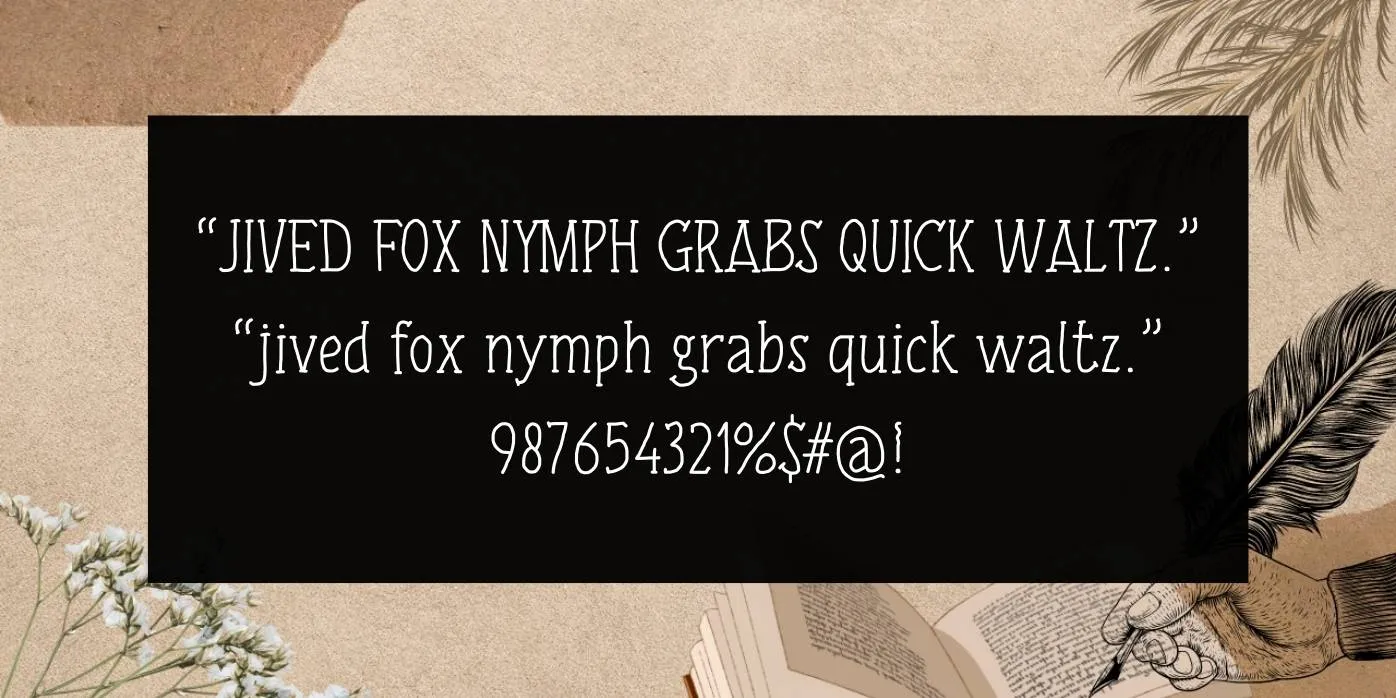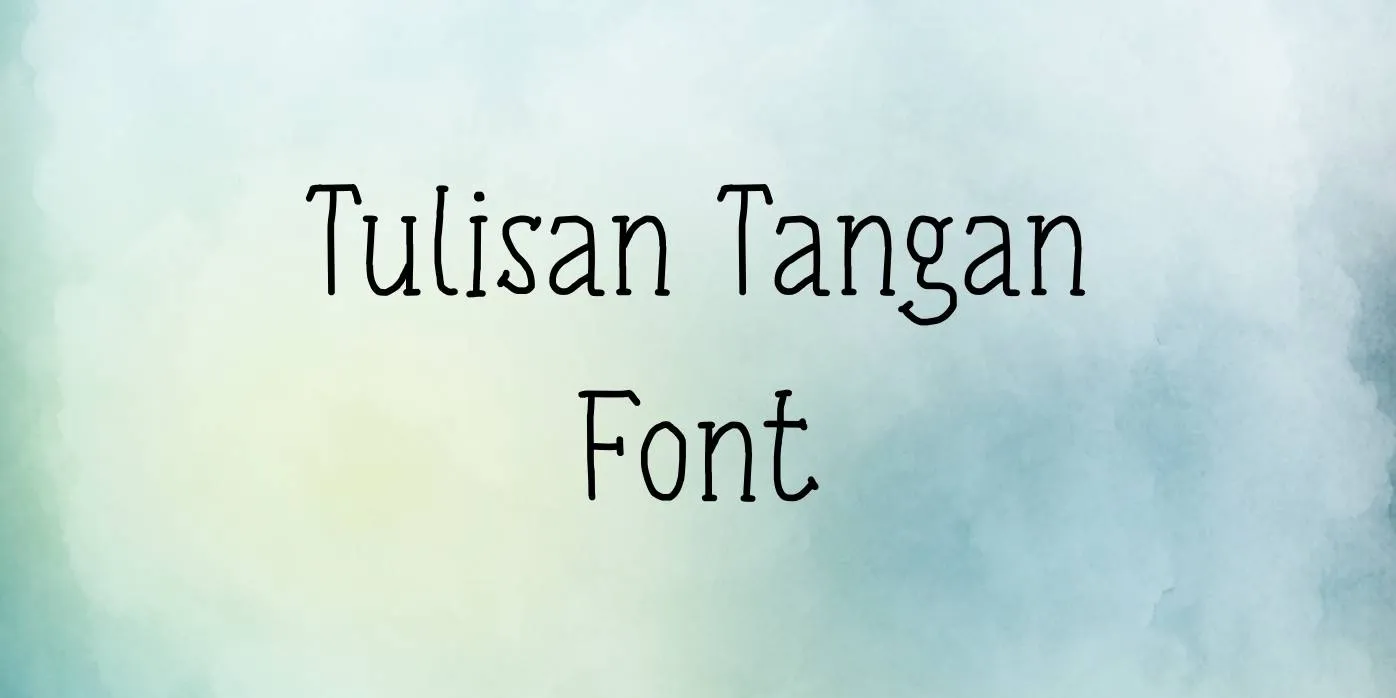
Tulisan Tangan Font
Tulisan Tangan Font is a handwritten typeface that was designed to imitate the handwriting of a human. The font was created by Indonesian type designer Aditya Widigdo. This Font is available in two weights, regular and bold. The regular weight is suitable for body text, while the bold weight can be used for headlines and other display purposes.
This Font is a versatile typeface that can be used for a variety of purposes. For more advanced uses, you need to use brix slab font by making a combination with this family. The font includes a wide variety of characters, including both upper- and lowercase letters, numbers, punctuation marks, and symbols. This Font also supports multiple languages, including Latin, Cyrillic, and Greek.